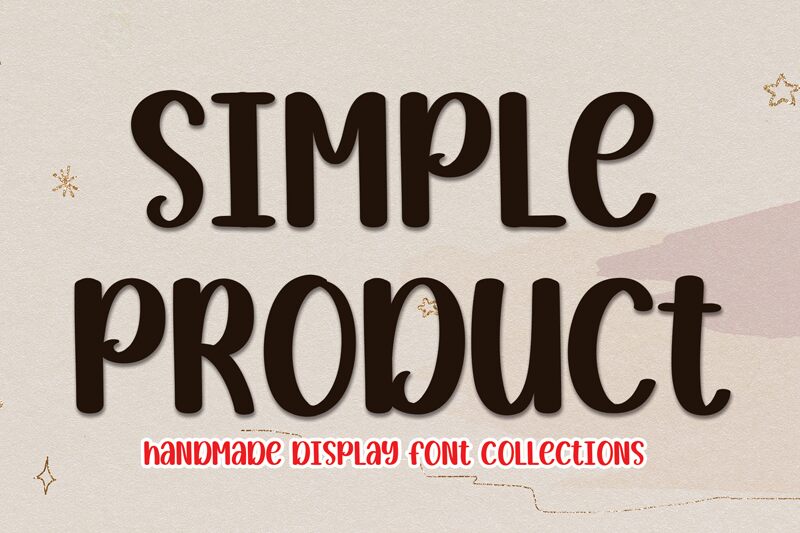
Simple Product
Simple Product is a captivating font that exudes a smooth, brush-like charm. Designed by Andi Moz, this font effortlessly blends elegance and versatility, making it an ideal choice for a wide range of design applications. The fluid, organic strokes create a sense of movement and fluidity, while the overall aesthetic strikes a balance between sophistication and approachability.
Simple Product's versatility shines through, as it can seamlessly transition from titling and branding to body text and callouts. Its distinctive personality lends itself well to projects ranging from editorial layouts and packaging design to digital interfaces and marketing materials. This font's adaptability and visual appeal make it a compelling option for designers seeking to elevate their creations with a touch of refined, handcrafted style.